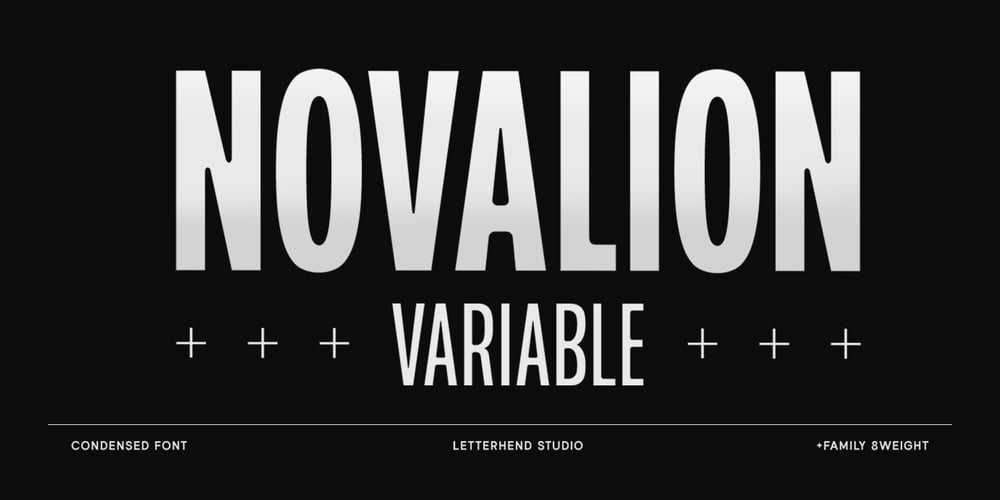
Novalion
Novalion font
Novalion Font Family was designed by Hendry Juanda and published by Letterhend. Novalion contains 8 styles and family package options. Novalion s a condensed variable sans serif font with with many weight you can choose. It has 8 weight styles which you can play around to match your project, whether for a standout headline, or for a tagline, you name it. Perfect to be applied to the other various formal forms such as invitations, labels, logos, magazines, books, greeting / wedding cards, packaging, fashion, make up, stationery, novels, labels or any type of advertising purpose.Features : variable font with 8 weight style uppercase & lowercase numbers and punctuation multilingual PUA encoded We highly recommend using a program that supports OpenType features and Glyphs panels like many of Adobe apps and Corel Draw, so you can see and access all Glyph variations.